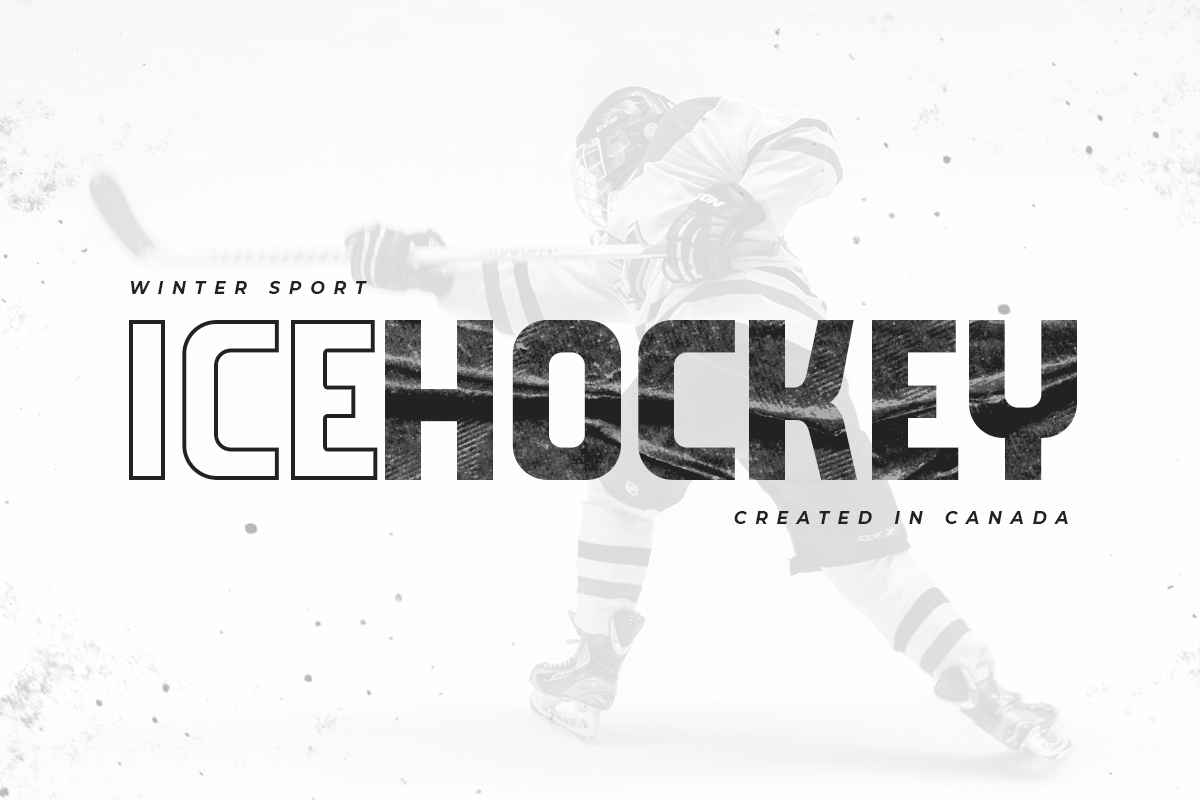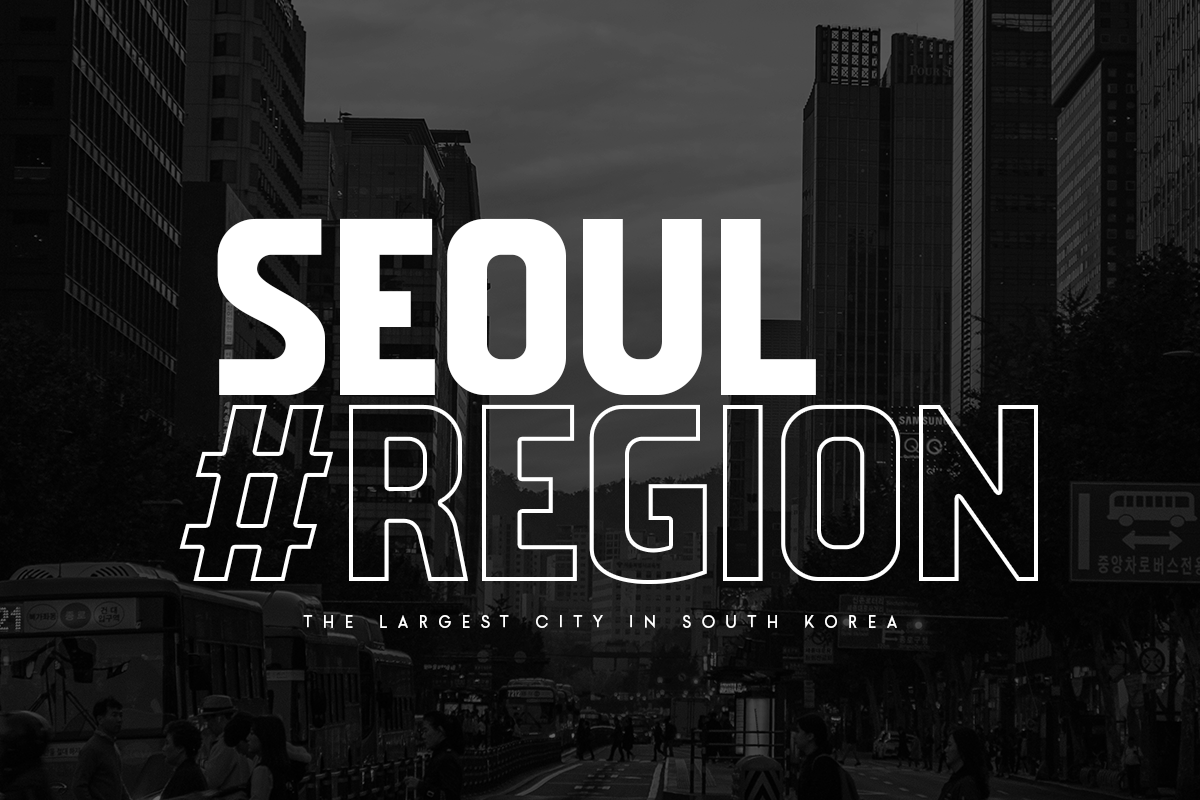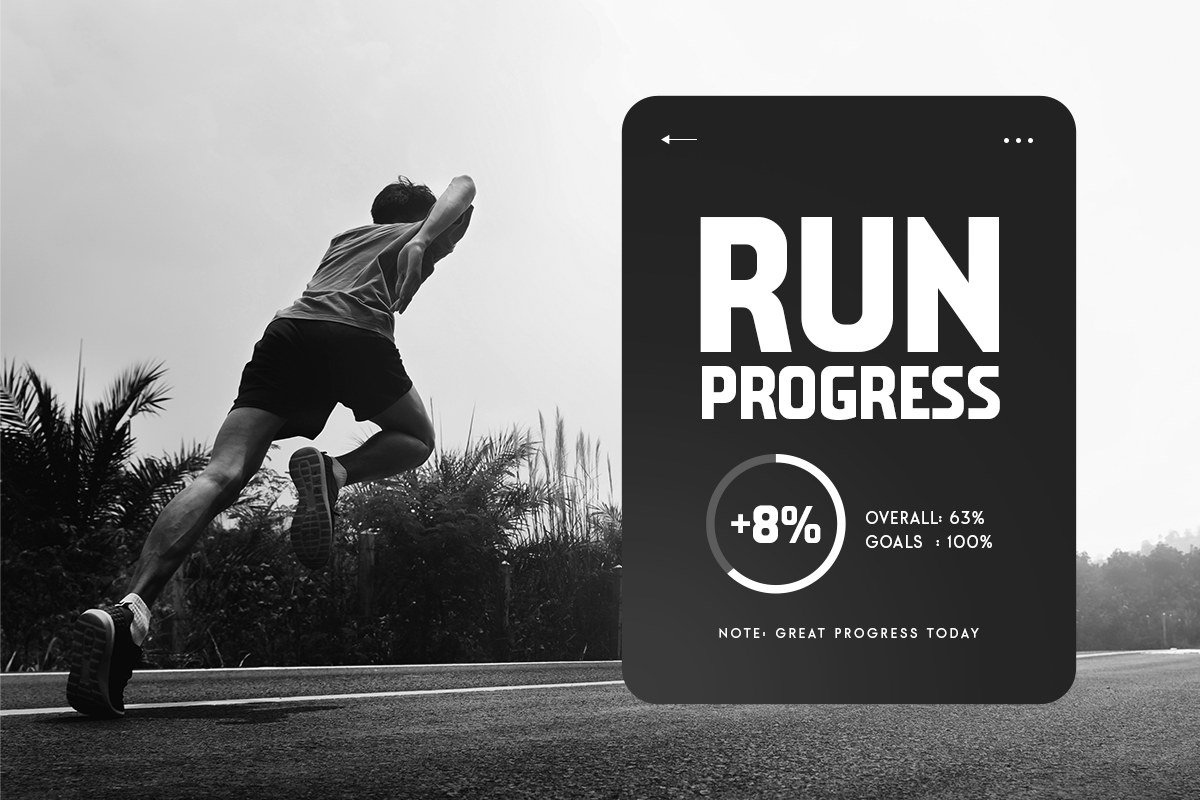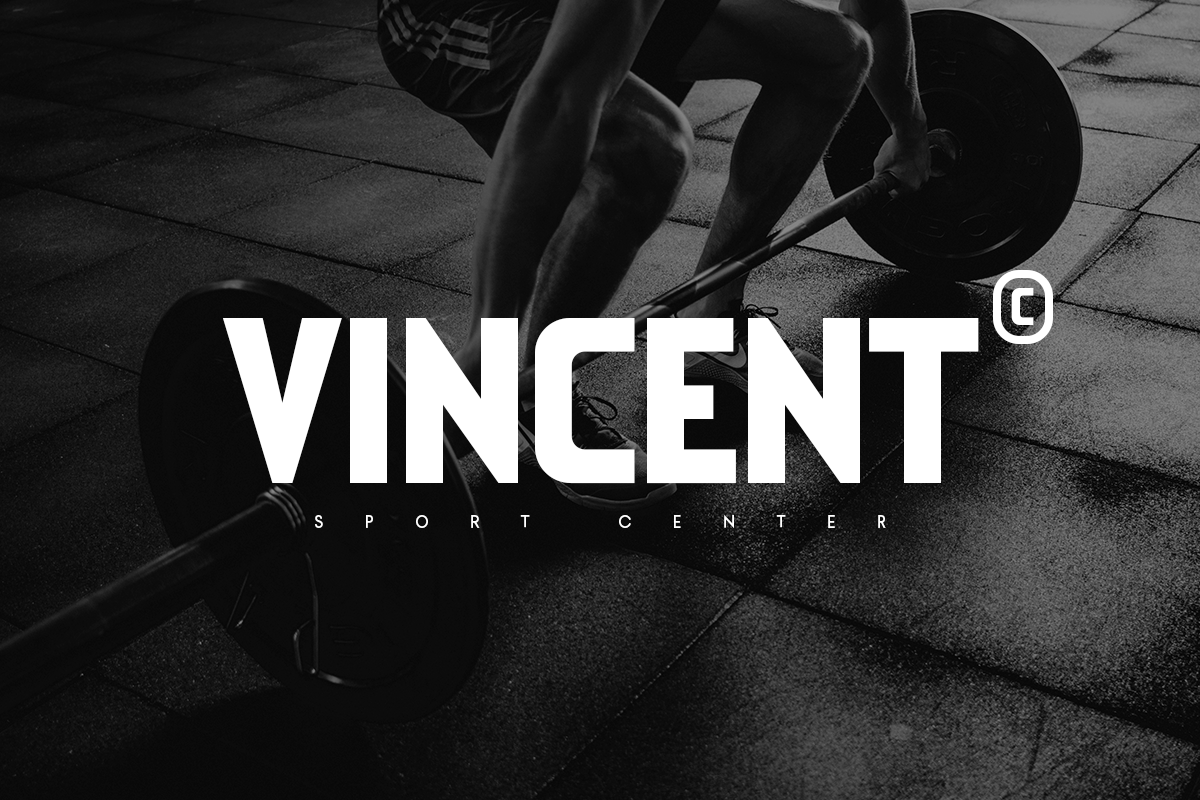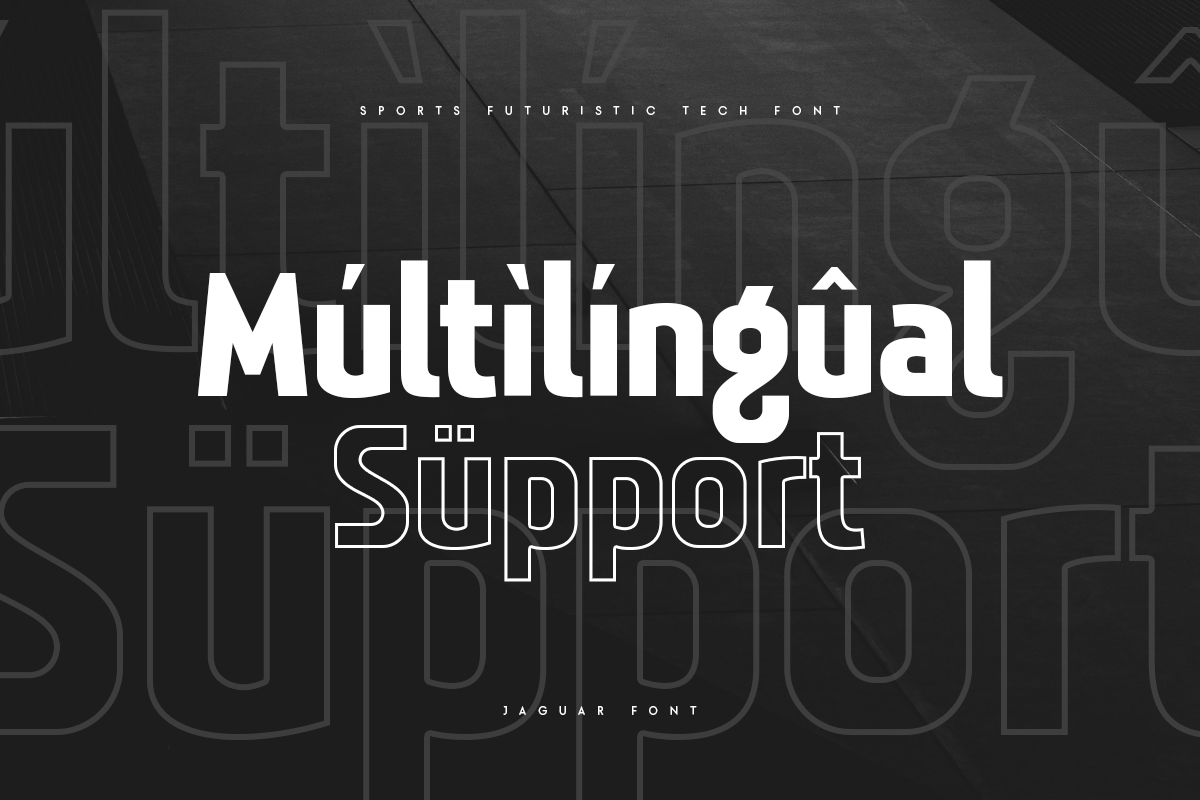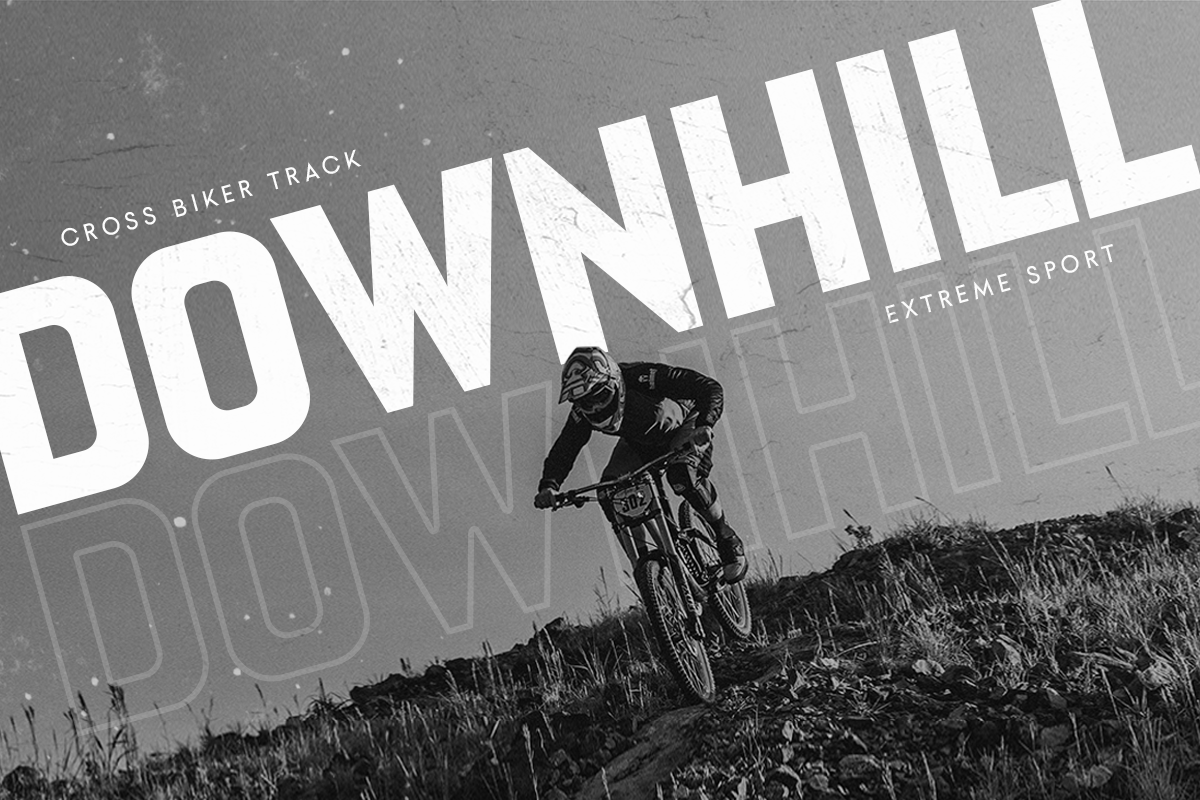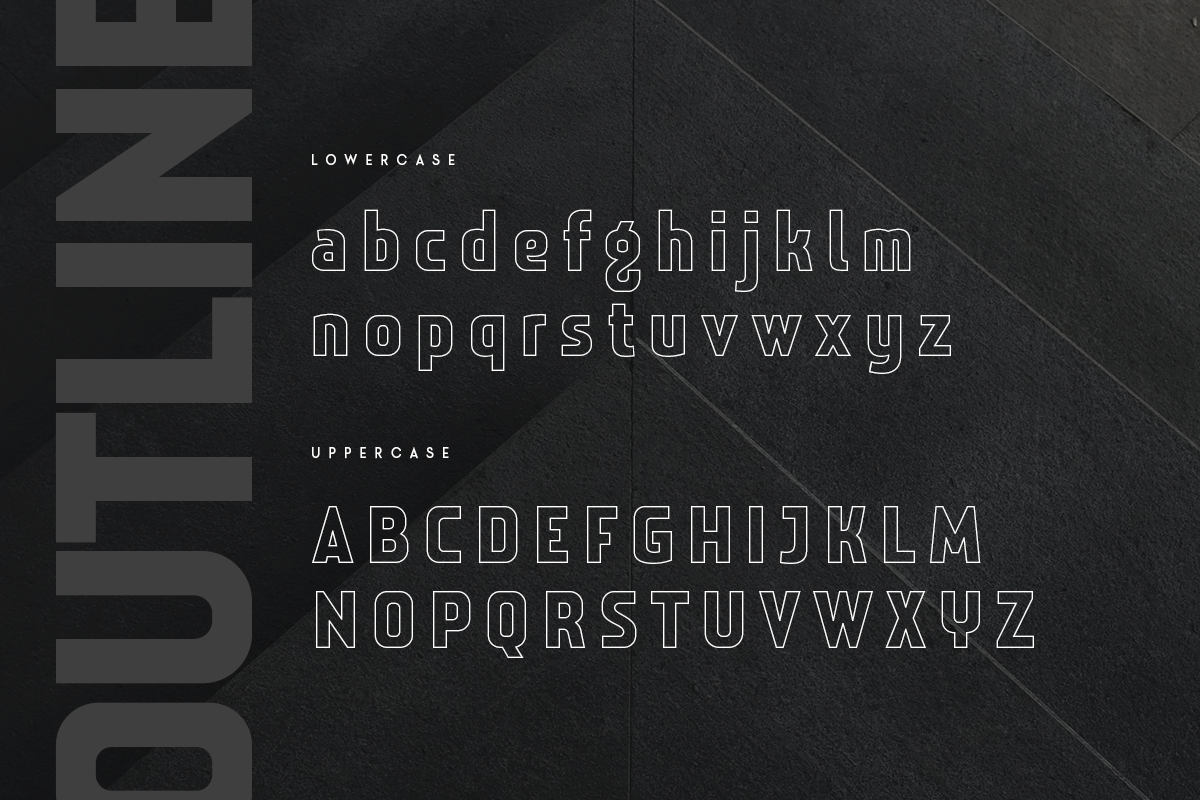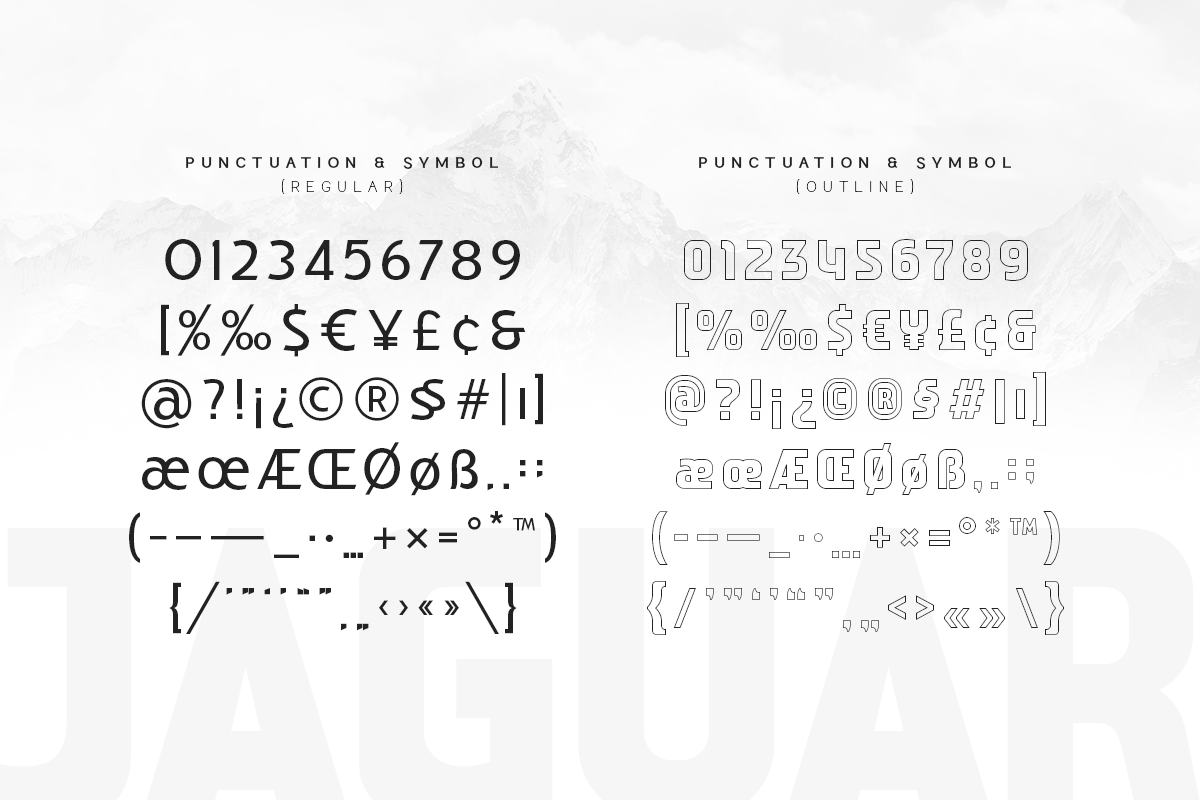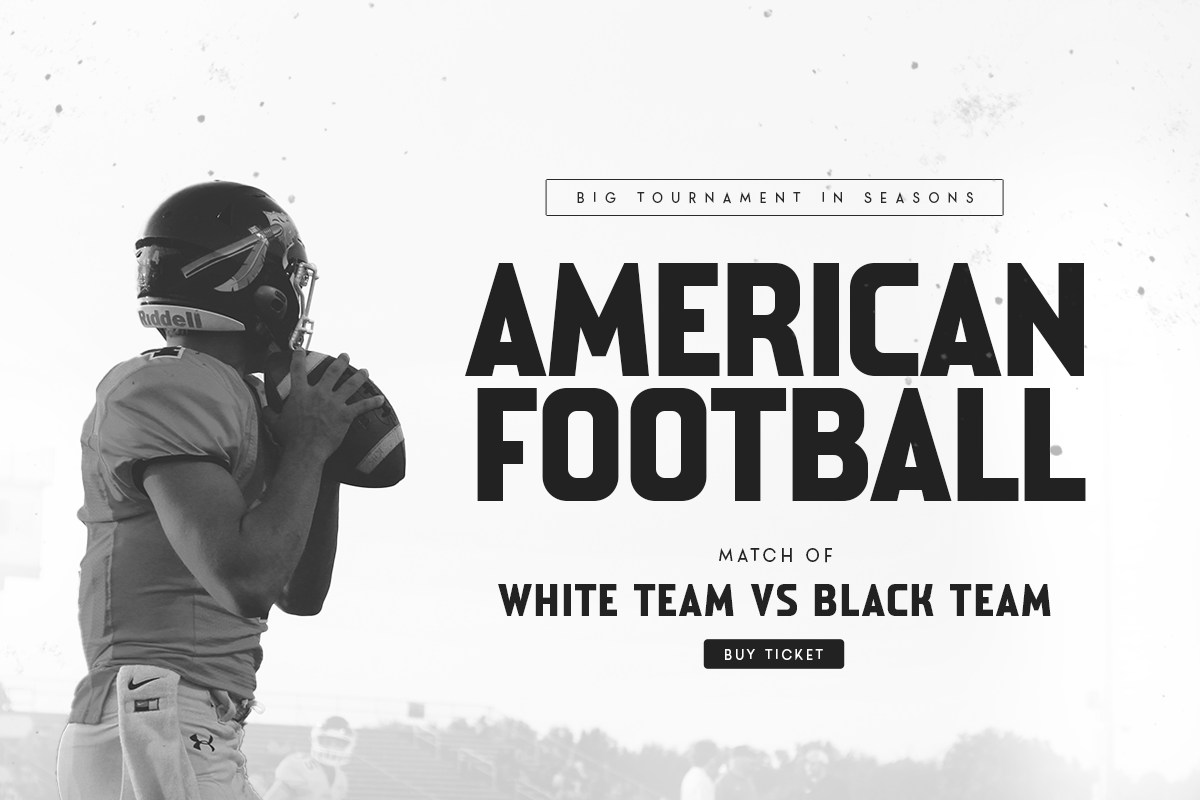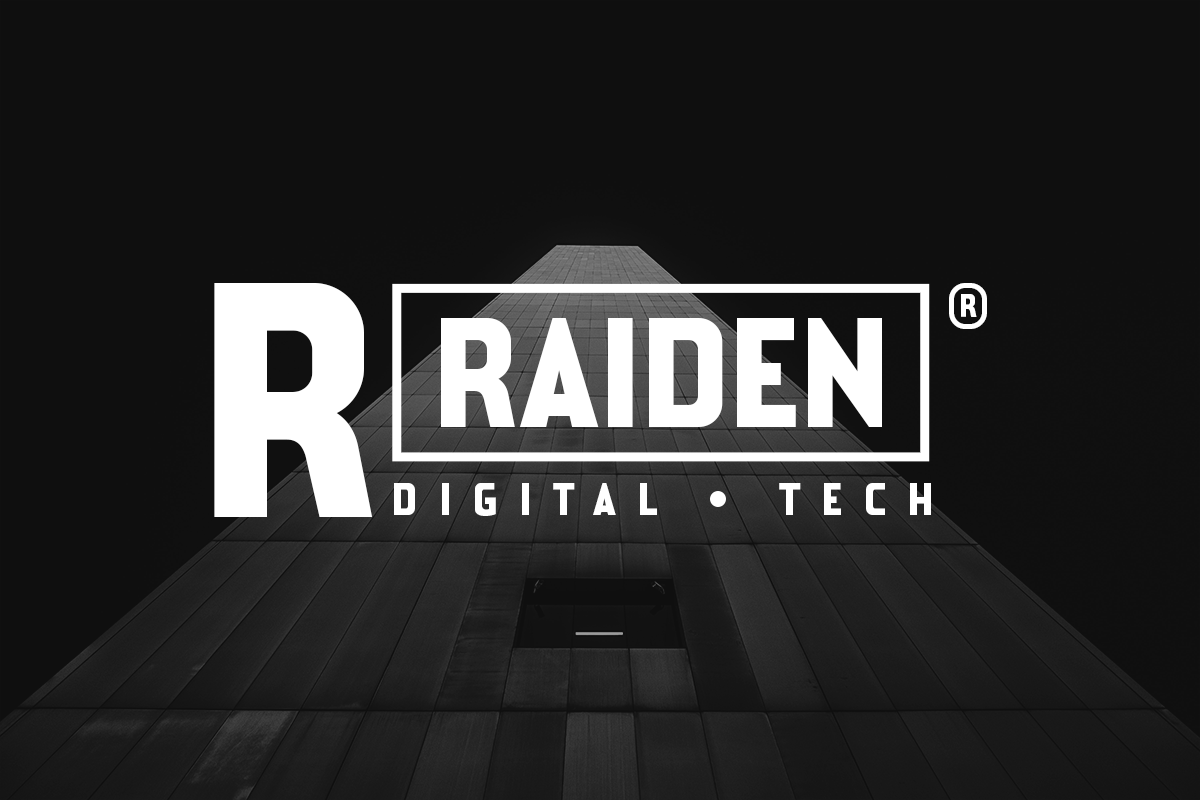
Jaguar - Sports Futuristic Tech Font
Jaguar is a Sports Futuristic Tech Font that special created for Sport and Technology design needs with Modern style. A New Sport font that we created special for Modern branding needs, with Futuristic style that ready to add value of your brand. It's so nice to leverage designer or product owner that need solutions to make their design look more unique and sporty.
Jaguar Sports Futuristic Tech Font ready with:
- Uppercase and Lowercase characters
- Numbers and Punctuations